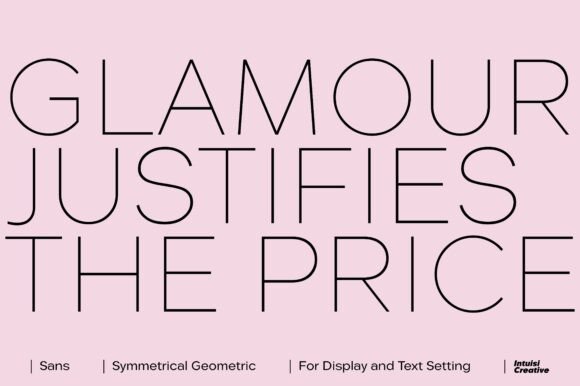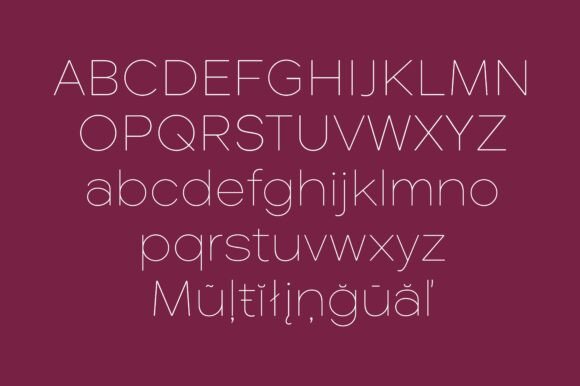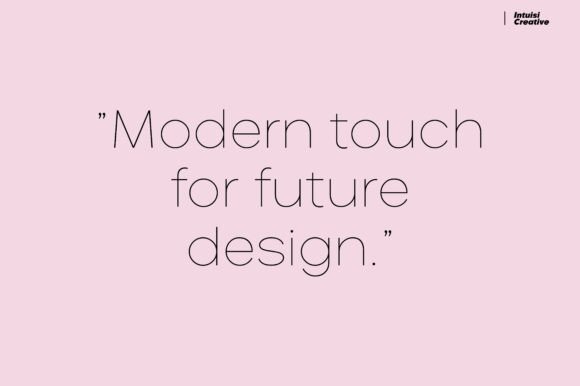
Discover the Essence of Modern Minimalism with Glamure Thin Font
In the realm of typography, the pursuit of elegance and sophistication is a continuous endeavor. For designers and crafters seeking to elevate their projects with a touch of high-end style, Glamure Thin emerges as a beacon of modern minimalism. This symmetrical geometric sans-serif font is meticulously designed to bring an air of understated elegance and architectural precision to a wide array of applications, from luxury branding and fashion editorials to sleek magazine layouts and boutique tech firm logos.
The Design Philosophy Behind Glamure Thin
Glamure Thin is not just a font; it’s a design statement. Its creation is rooted in the philosophy of simplicity and versatility, making it an exceptional choice for those who appreciate the beauty of clean lines and minimalist aesthetics. The font’s geometric symmetry ensures a balanced and harmonious visual experience, perfect for projects that demand a high level of sophistication and precision.
Versatility at Its Core
One of the standout features of Glamure Thin is its versatility. This font excels in large-scale display settings, where its elegant lines and geometric precision can be fully appreciated. It’s an ideal choice for:
• Luxury branding: Elevate your brand with a sophisticated and minimalist logo that communicates high-end quality.
• Fashion editorials: Add a touch of elegance to your magazine layouts and fashion spreads.
• Avant-garde magazine layouts: Create a sleek and modern visual experience for your readers.
Beyond its use in display settings, Glamure Thin also maintains exceptional legibility in clean text settings, making it suitable for a wide range of applications, from digital interfaces to print materials.
Crafting Elegance with Glamure Thin
For designers and crafters, Glamure Thin offers a canvas of creative possibilities. Whether you’re tasked with creating a minimalist logo for a boutique tech firm or designing a sleek layout for an avant-garde magazine, this font provides the perfect blend of form and function. Its understated elegance ensures that your work stands out not for loudness, but for refined taste and sophistication.
The Benefits of Using Glamure Thin
Choosing Glamure Thin for your typography needs comes with several benefits:
• High-end Sophistication: Instantly elevate your project’s aesthetic with a font that exudes luxury and elegance.
• Versatility: Use Glamure Thin across various platforms and applications, from digital displays to print materials.
• Legibility: Enjoy clear and clean text, even at smaller sizes, making it perfect for body text and captions.
• Architectural Precision: Add a touch of geometric precision to your designs, giving them a modern and sleek look.
Implementing Glamure Thin in Your Projects
Glamure Thin is more than just a font; it’s a design tool that empowers you to create with elegance and precision. Its symmetrical geometric sans-serif design makes it an ideal choice for anyone looking to infuse their projects with a sense of modern minimalism and high-end sophistication. Whether you’re a designer, a crafter, or simply someone who appreciates the beauty of typography, Glamure Thin offers a world of creative possibilities waiting to be explored.
Embark on your journey to typographic excellence with Glamure Thin. Experience the fusion of elegance, versatility, and precision that this remarkable font has to offer. Your designs deserve the best, and with Glamure Thin, you’re one step closer to achieving visual perfection.